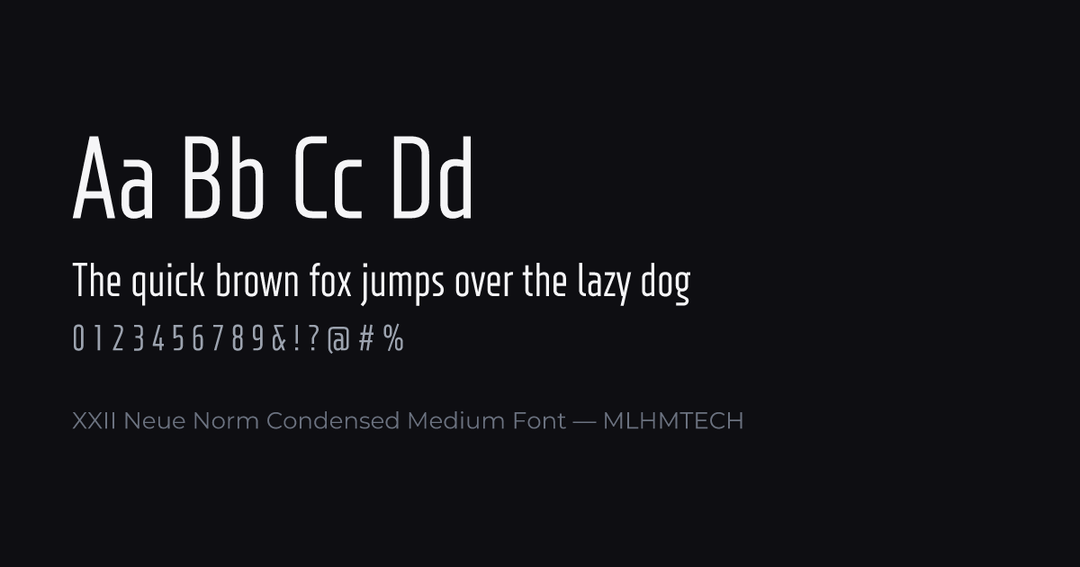
XXII Neue Norm Condensed Medium Font
A condensed sans-serif font with a modern, geometric feel. Ideal for impactful headlines and clean branding.
XXII Neue Norm Condensed Medium is a versatile typeface that combines a condensed structure with a medium weight, offering a balance between space efficiency and visual presence. Its geometric forms and clean lines make it suitable for a wide range of design projects, from print to digital media.
This font is particularly effective for headlines, posters, and branding where you need to convey a modern and professional aesthetic. The condensed nature allows for more characters per line, making it great for space-constrained layouts or creating a strong typographic impact.